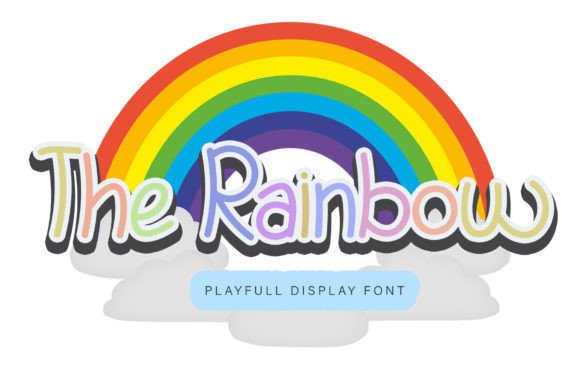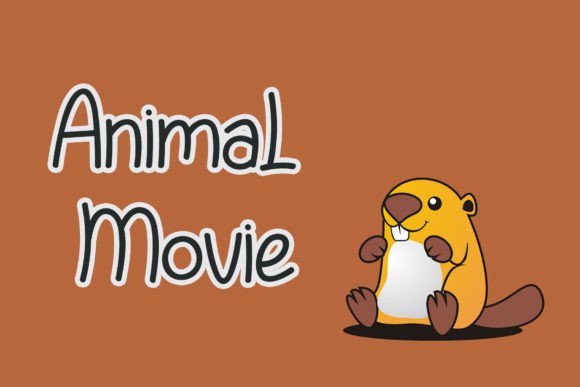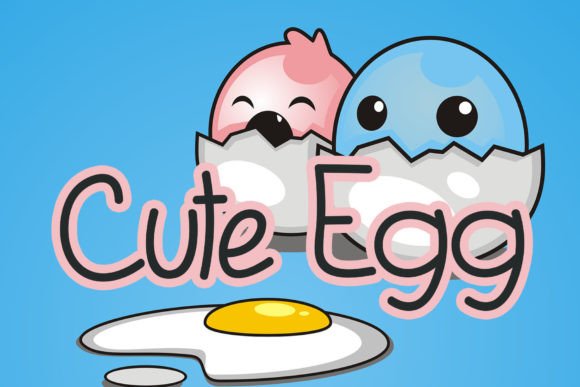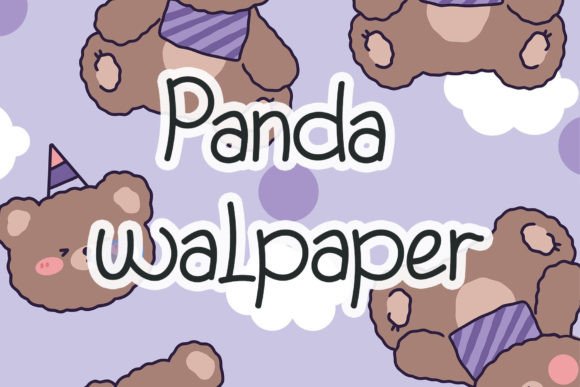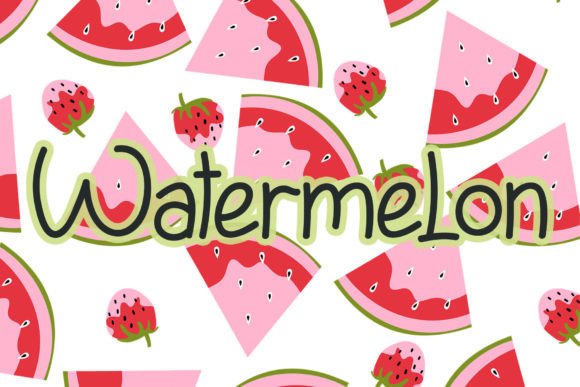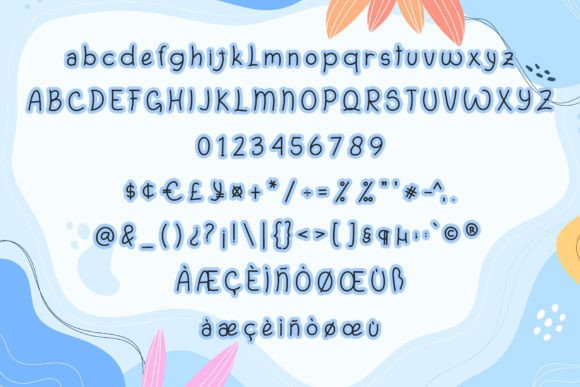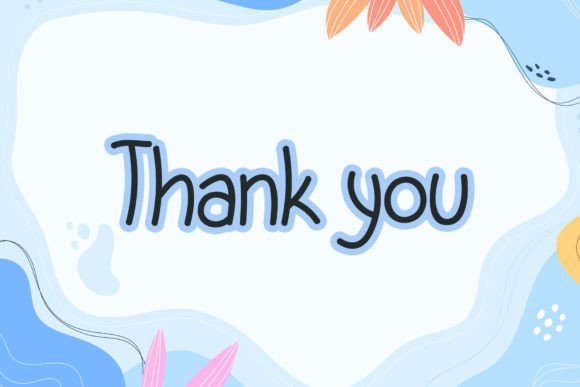
The Rainbow Font
About The Rainbow Font
The Rainbow font is an exquisite and captivating typeface that seamlessly blends sweetness with beauty. Crafted with meticulous attention to detail, this handwritten font features characters that gracefully dance along the baseline, imparting a sense of fluidity and charm to every stroke. Its unique design adds a touch of luxury, creating a visual symphony that will elevate any design project to new heights.
What sets The Rainbow apart is its ability to infuse a sense of personality and warmth into your creations. The characters in this font are not just letters; they are individual dancers, each contributing to a harmonious ballet of elegance. The handwritten quality imparts a personal touch, making your designs feel unique and inviting.
As you integrate The Rainbow into your projects, you’ll notice an immediate transformation. Whether you’re working on invitations, branding materials, or creative displays, this font adds a spark of creativity that is unparalleled. It becomes more than just a typeface; it becomes a storyteller, conveying a narrative of sophistication and taste.
The luxury embedded in The Rainbow font extends beyond aesthetics. It becomes a visual representation of the care and thoughtfulness you invest in your design projects. Every curve and swirl becomes a testament to your commitment to excellence, turning your work into a masterpiece that resonates with your audience.
Imagine a world where your designs not only catch the eye but also leave a lasting impression. The Rainbow font empowers you to create that world. Its versatility allows it to adapt to various design contexts, ensuring that whether you’re aiming for a playful or formal tone, The Rainbow delivers with finesse.
In a sea of fonts, The Rainbow stands out as a beacon of creativity and sophistication. It invites you to break free from the mundane and embrace the extraordinary. Let your designs come alive with the vibrant energy of The Rainbow, and witness the magic unfold as your projects transform into expressions of beauty, style, and sheer brilliance.